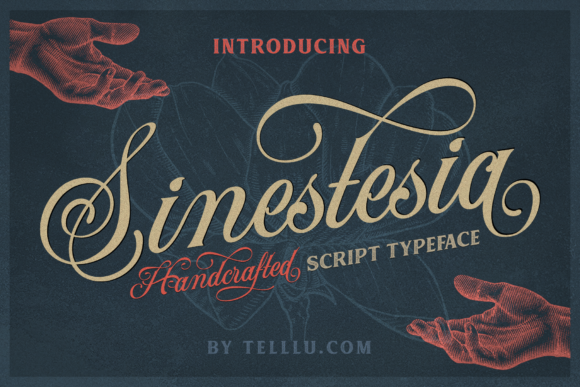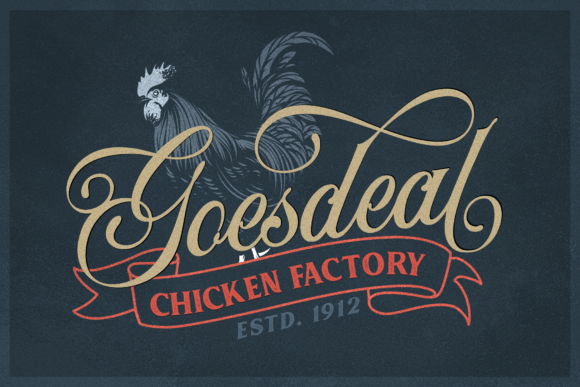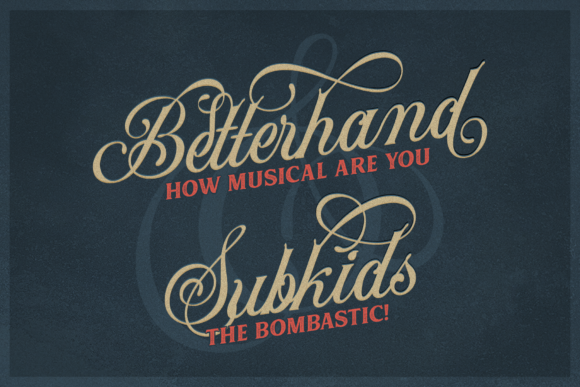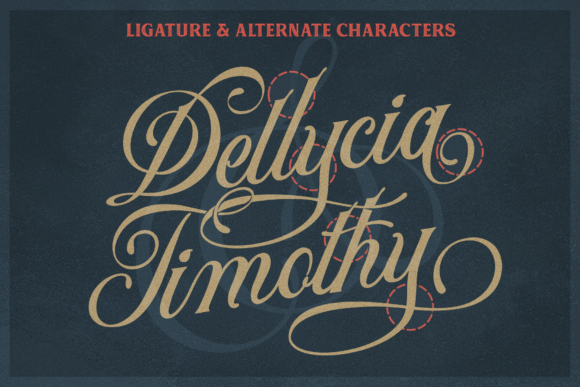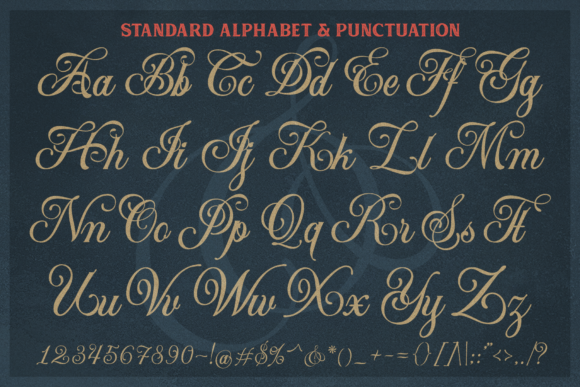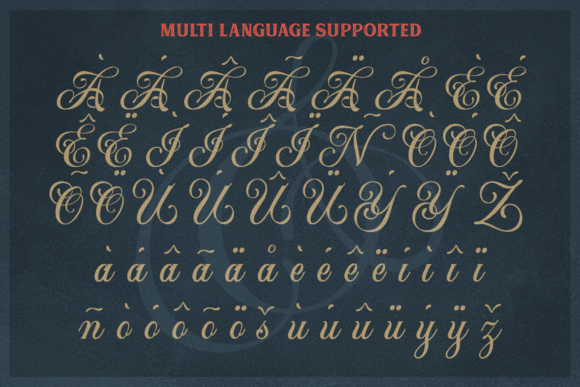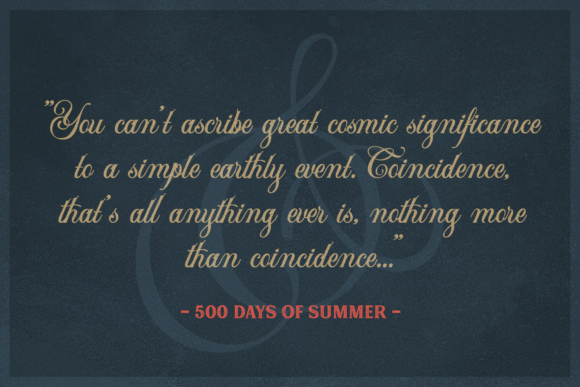
Sinestesia Font
About Sinestesia Font
Sinestesia is a stunning handcrafted script typeface, originally crafted by talented lettering artist, Haris MM. This font was inspired by brush lettering form old window signage, and has a supremely nostalgic appeal that will give your projects tons of personality and style. This download comes with bonus files!